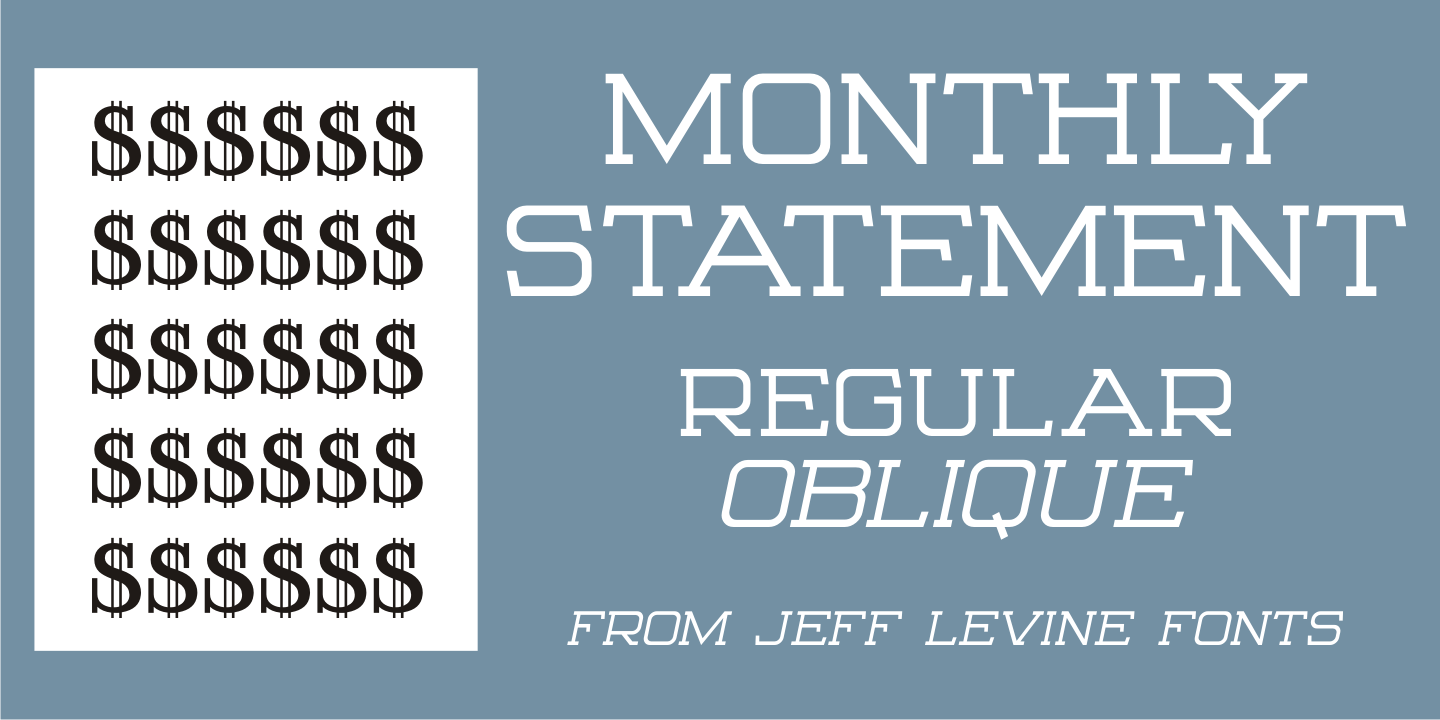
Monthly Statement
The 1934 French publication L'Art du Tracé Rationnel de la Lettre is a vintage guide book on lettering chock full of interesting alphabets that have been an ongoing source of digital type revivals from the designs found within its pages.
Monthly Statement JNL is a squared slab serif design with some Art Deco flair; available in both regular and oblique versions.
This style of type evokes images of billheads, bank statements and other important documents of the era.